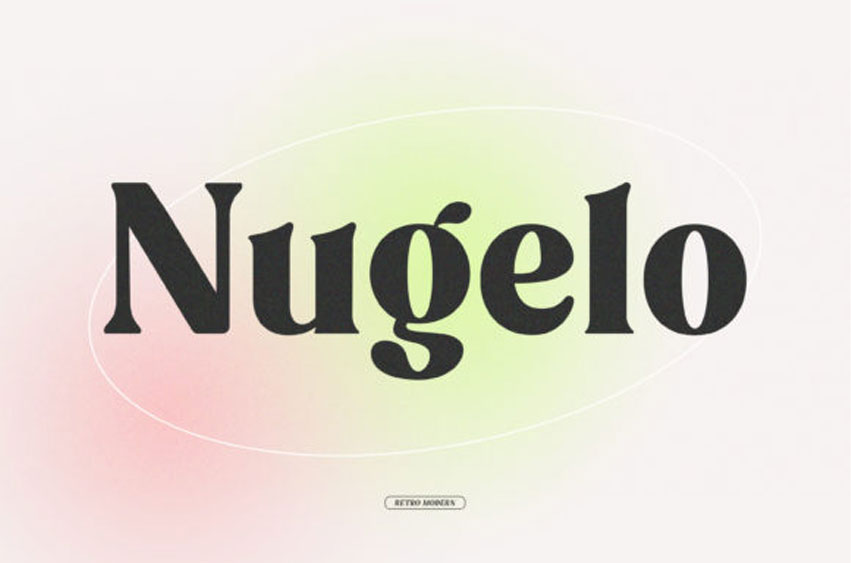
Nugelo Font
Nugelo Font is a retro and modern serif font. It is suitable for various design needs such as branding, logo, poster, headlines and many others.